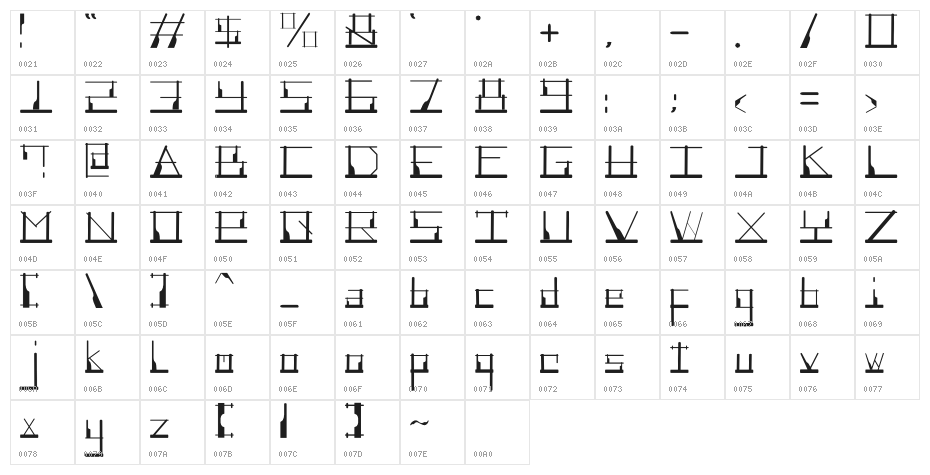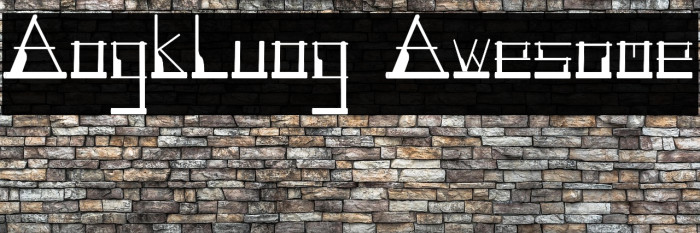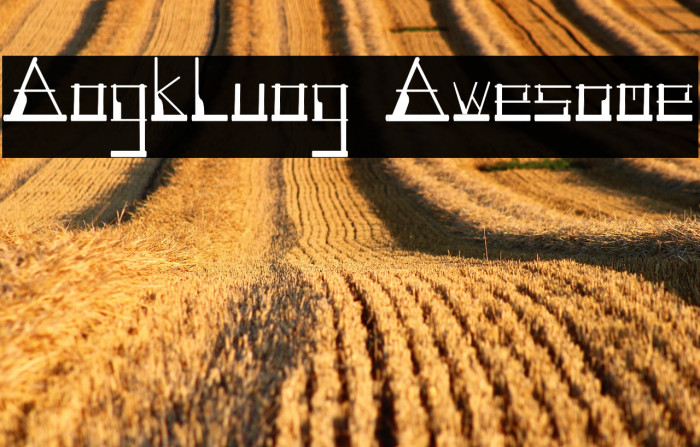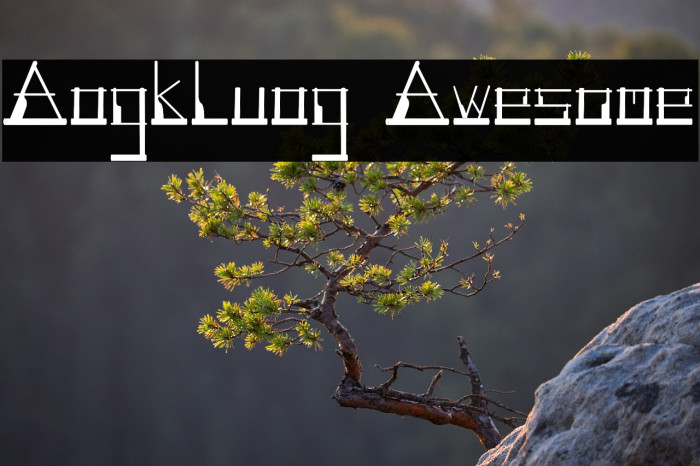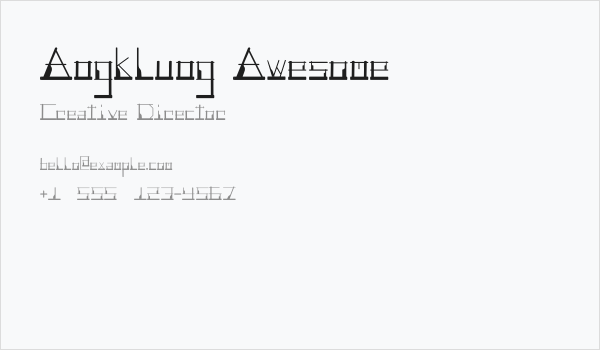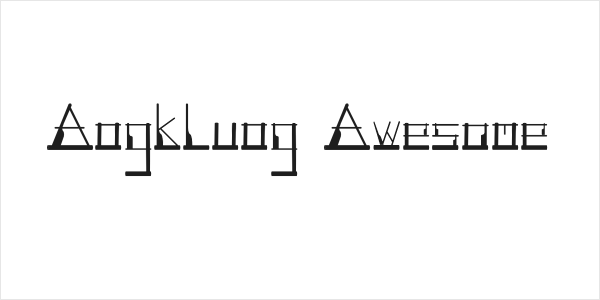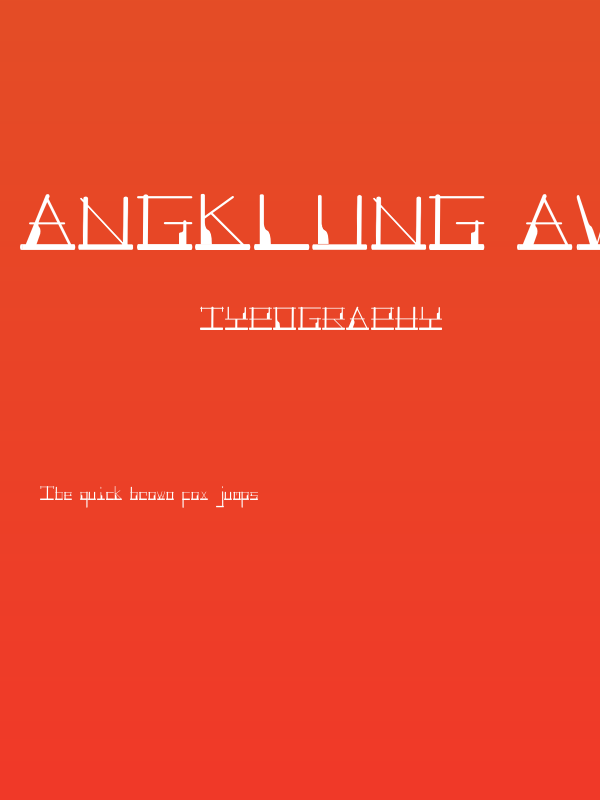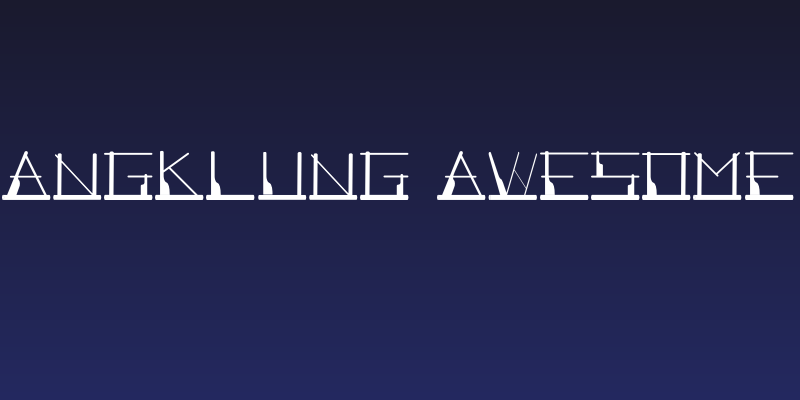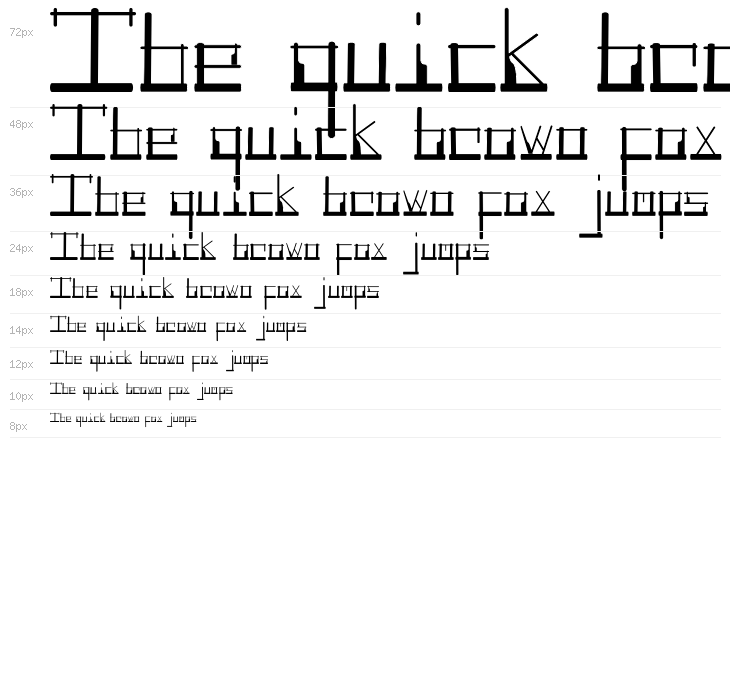
Angklung Awesome Font
Angklung Awesome Description
This font features a unique and modern design, characterized by its geometric and angular shapes. The letters are constructed with a combination of thin and thick strokes, creating a high contrast that enhances readability while maintaining a distinct style. The uppercase and lowercase letters share a consistent design language, with sharp angles and straight lines that give the font a futuristic and technical appearance. The numerals and special characters are designed to match the overall aesthetic, making this font suitable for a variety of applications. Its bold and structured form makes it ideal for projects that require a strong visual impact.
| Overall Style | Futuristic, Technical |
| Proposed Projects | Ideal for technology branding, futuristic posters, and digital interfaces. |